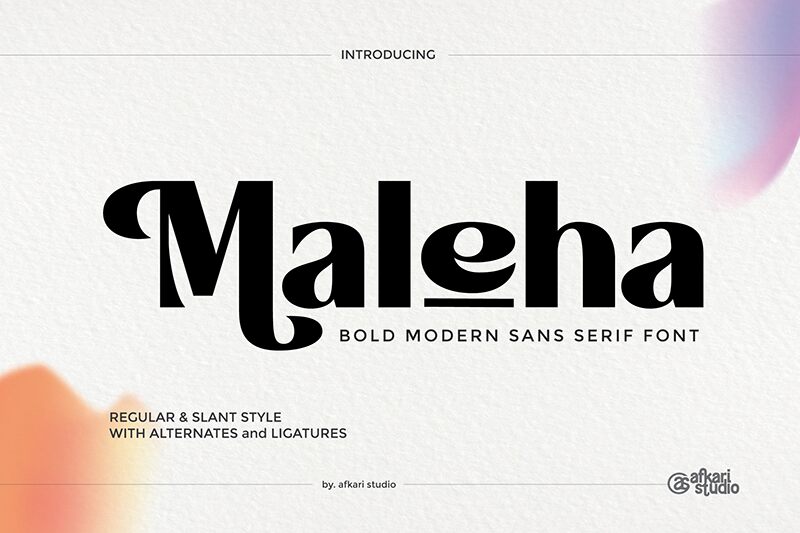
Maleha emerges as a bold testament to the craftsmanship of Musthafa Kamal Emje from Afkari Studio, standing at the intersection of vintage charm and modern flair. This display font boasts a semi-expanded width that commands attention, while its weight reinforces a sense of solid reliability. With a style that harkens back to classic design yet feels thoroughly contemporary, Maleha is an impeccable choice for those seeking to infuse their creative projects with a stroke of sophistication.
Embrace the versatility of Maleha's two distinct styles-regular and slant-to add depth and character to your work. Whether it's branding, editorial design, or advertising campaigns, this font's vintage underpinnings are seamlessly married with bold modernity, making it an ideal selection for designers aiming to make a powerful statement.
Maleha